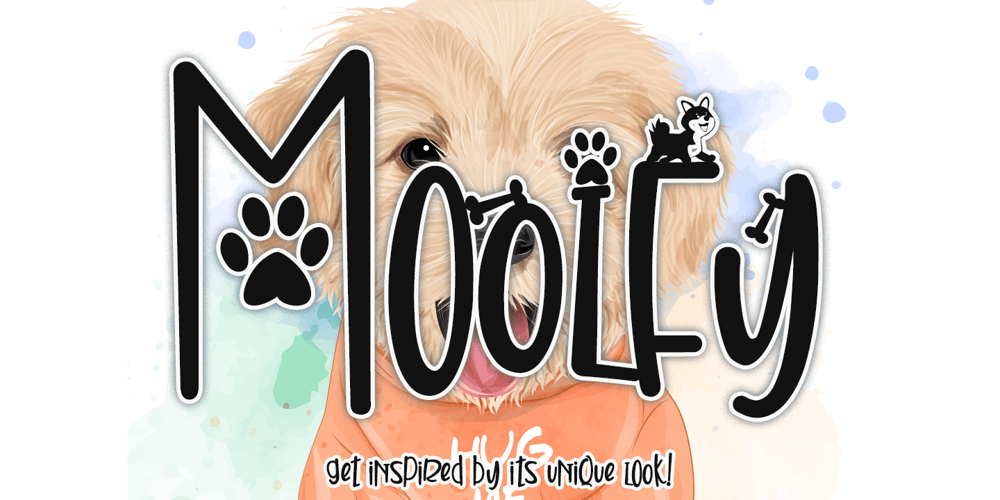
Moolfy Font Family was designed by Stefani Tri Rosa Setiati Christiana and published by Stefani Letter. Moolfy contains 5 styles and family package options. Moolfy is an amazing display font. It is the perfect choice for dog related and anything project! This font is PUA encoded which means you can access all of the amazing glyphs and swashes with ease! It also features a wealth of special features including alternate glyphs and ligatures.